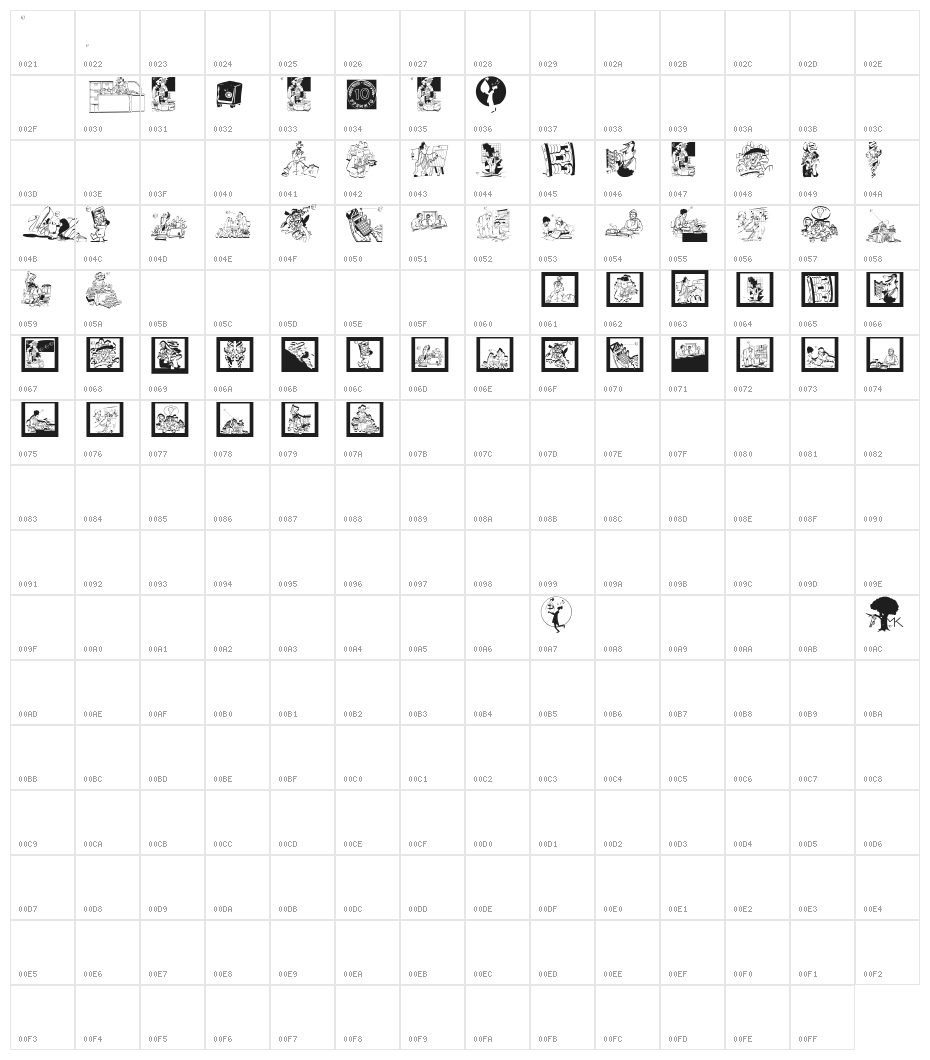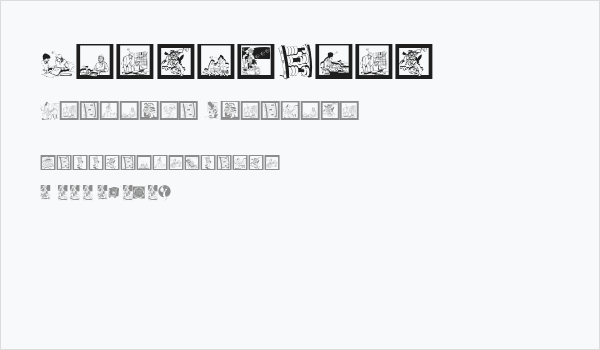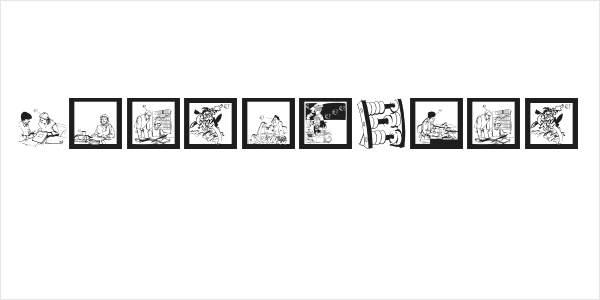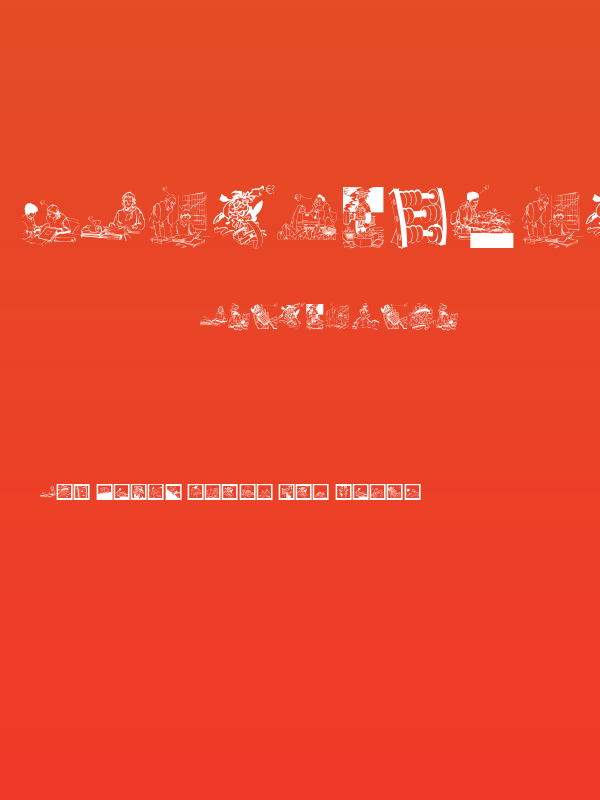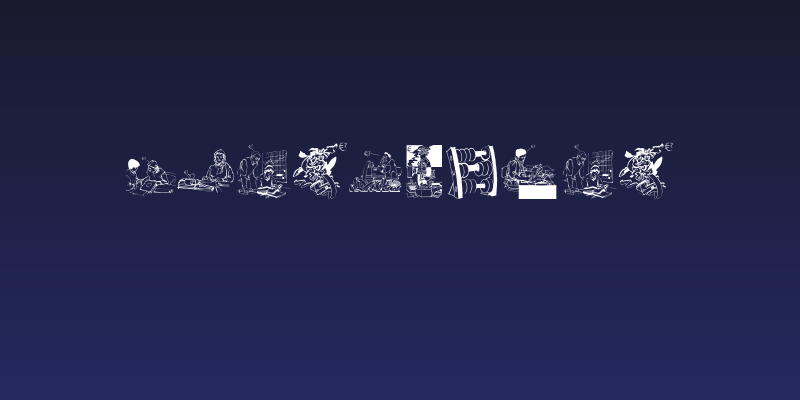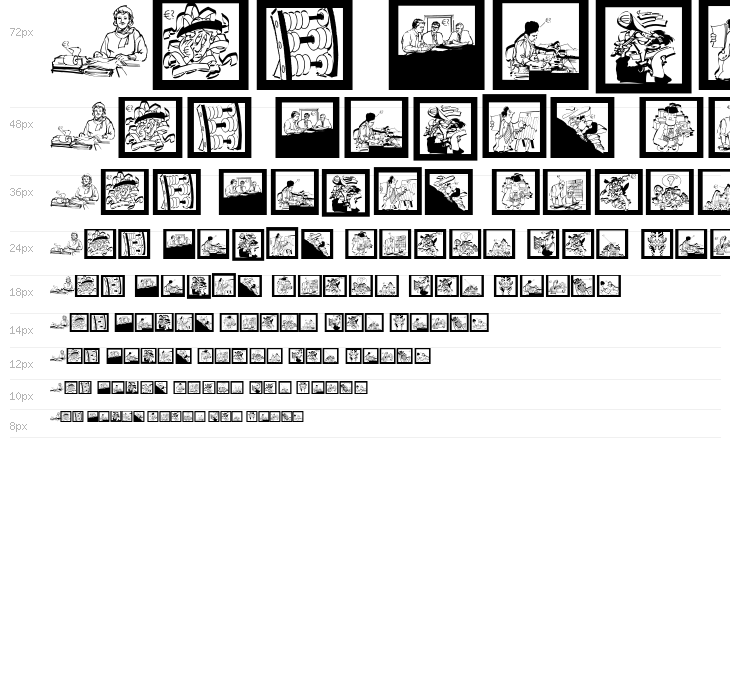
StrongEuro Font
StrongEuro Description
This is not a traditional font but rather a collection of cartoon-style illustrations representing each character. Each letter and number is depicted through a unique and humorous drawing, often involving people, objects, or scenes that convey a playful and whimsical tone. The style is reminiscent of classic comic strips, with bold outlines and detailed sketches. The characters are expressive, capturing various scenarios that add a narrative element to each symbol. This makes it more of an artistic representation rather than a functional typeface for text.
| Use Case | Logos, Illustrations, Posters |
| Proposed Projects | Ideal for comic books, playful posters, children's books, or any project requiring a whimsical and artistic touch. |